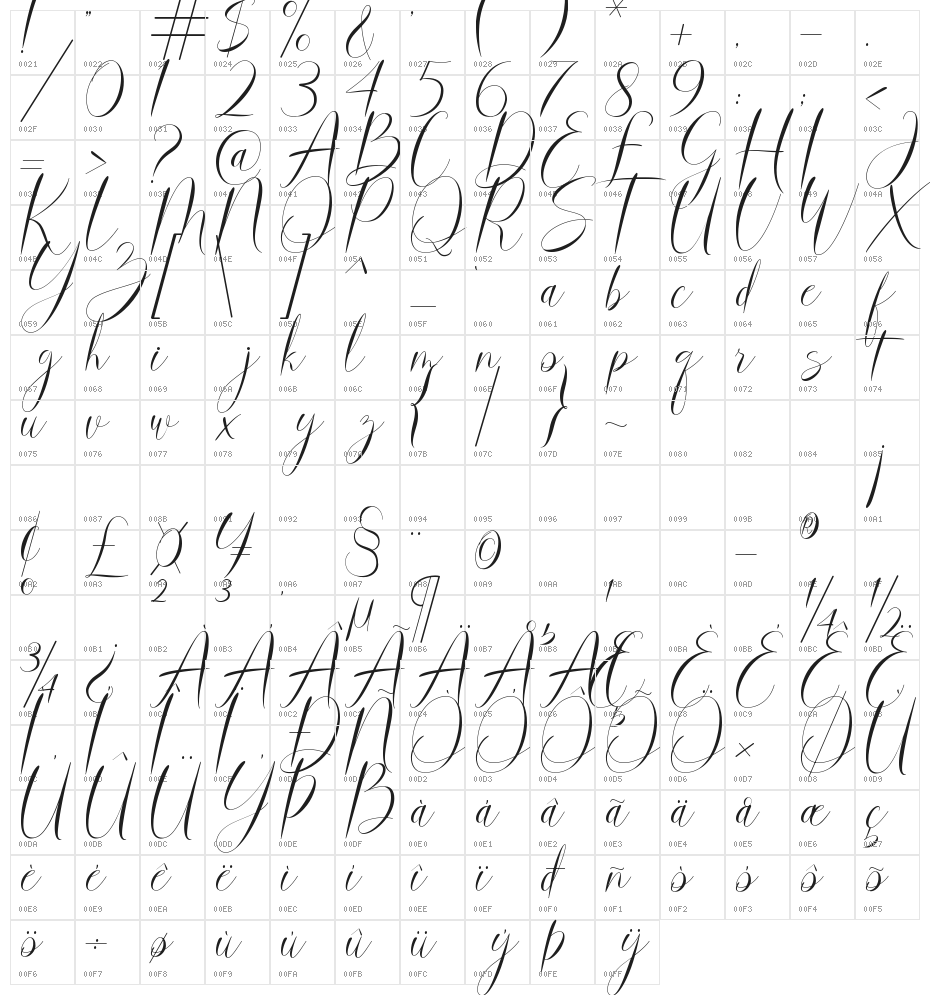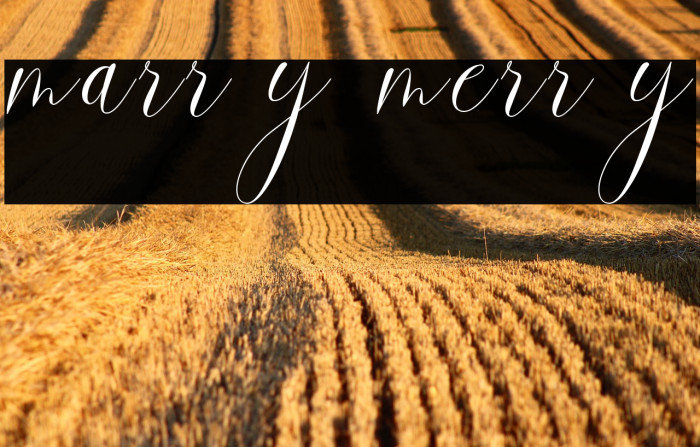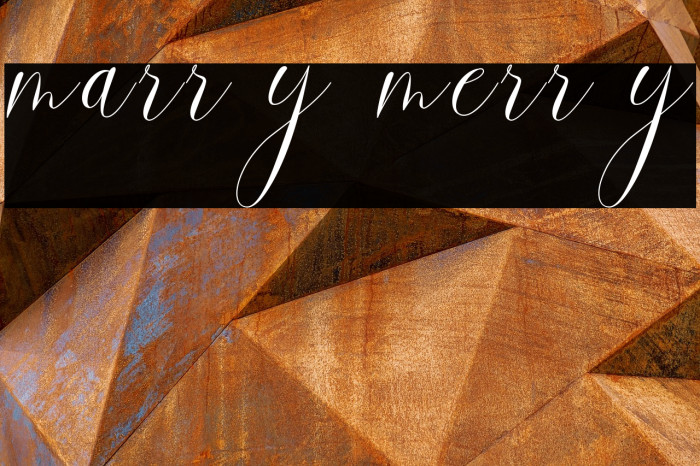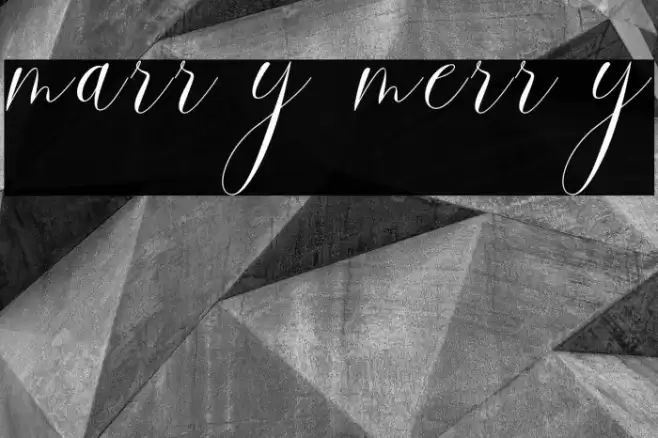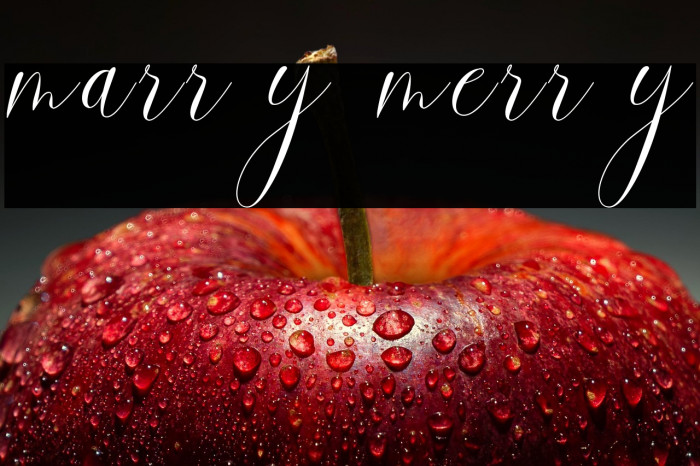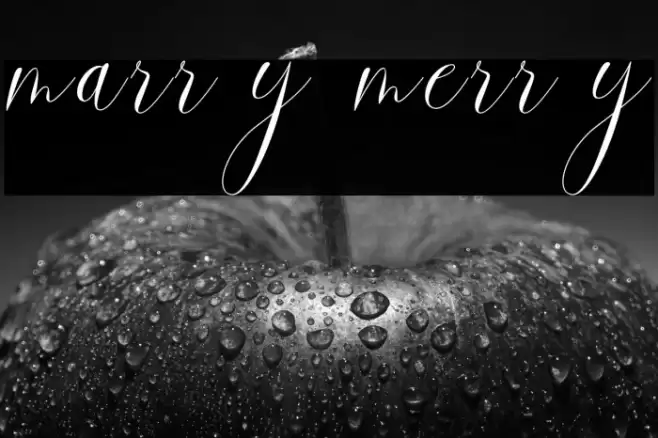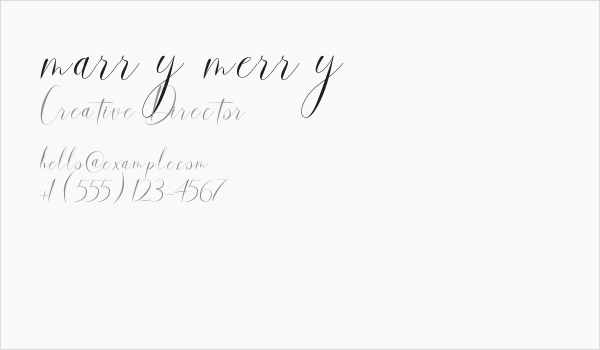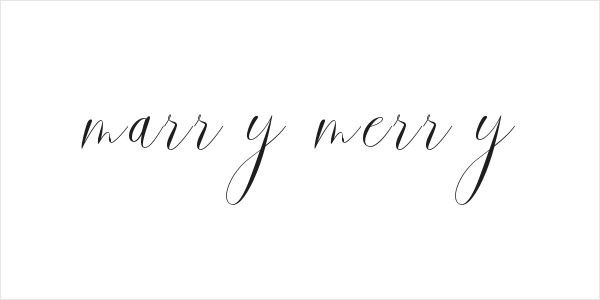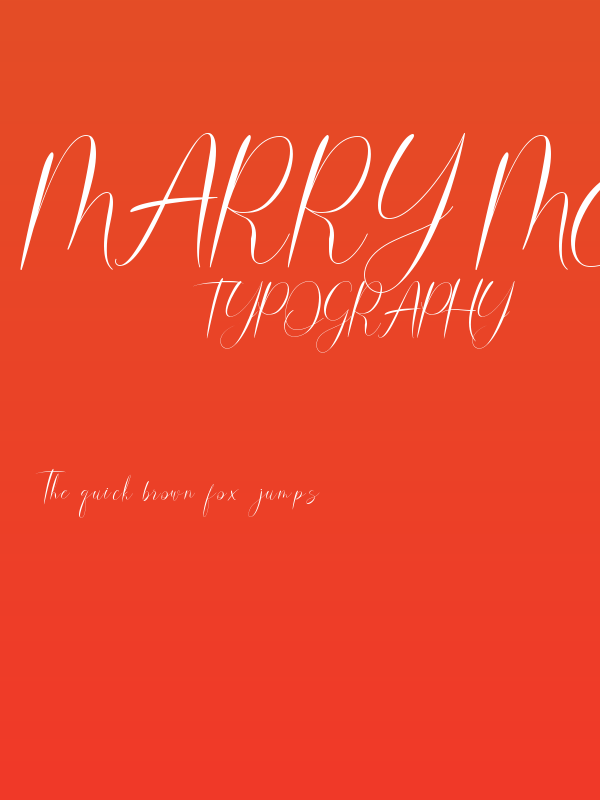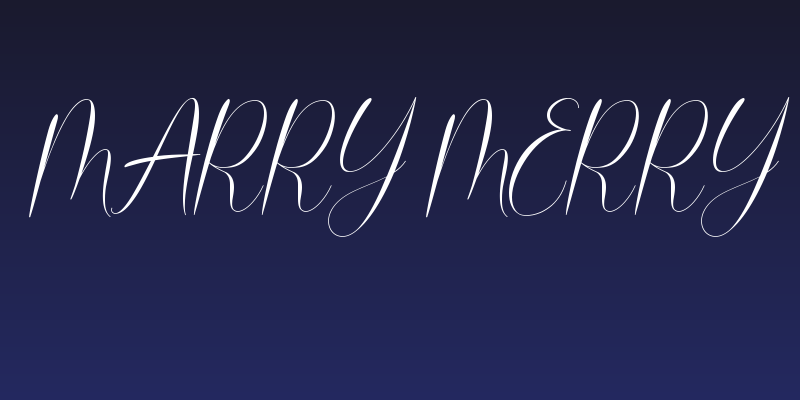
marry merry Font
marry merry Description
This elegant script font features flowing, interconnected letters that exude a sense of sophistication and grace. The uppercase letters are tall and slender, with delicate curves and loops that add a touch of flair. The lowercase letters maintain a consistent style, with smooth transitions and a slightly slanted orientation, enhancing the handwritten feel. The numerals are equally stylish, with a harmonious balance between curves and straight lines. Special characters are thoughtfully designed to match the overall aesthetic, making this font ideal for projects that require a personal, artistic touch.
| Overall Style | Elegant, Artistic |
| Use Case | Logos, Invitations, Personal stationery |
| Proposed Projects | Ideal for wedding invitations, elegant branding, personal stationery, and artistic projects. |